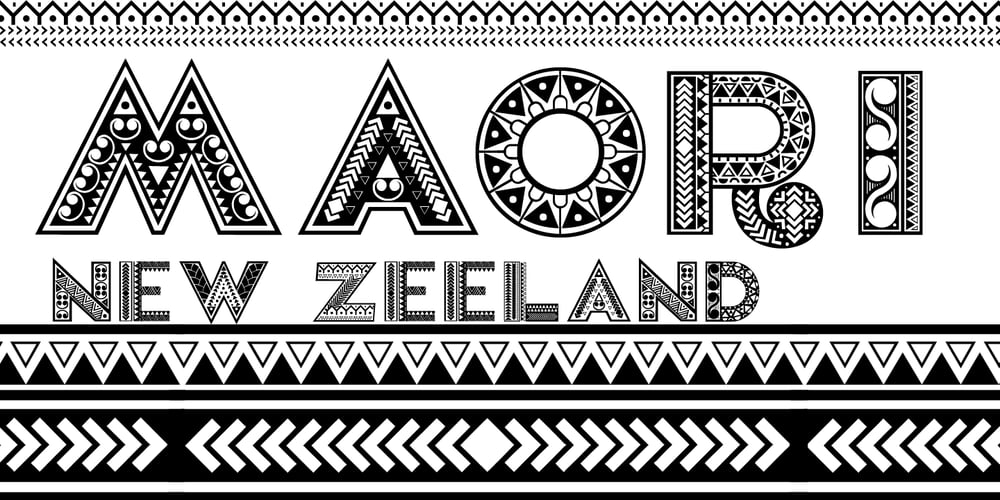
Maori New Zeeland
Maori New Zeeland font
Maori New Zeeland Font Family was designed by Otto Maurer and published by Otto Maurer. Maori New Zeeland contains 5 styles and family package options. Maori New Zeeland is made for all MAORI Tribal fans. It comes with many MAORI Tribal Graphics and a extra Font for two color style!